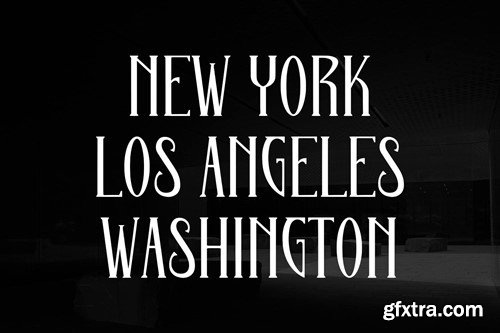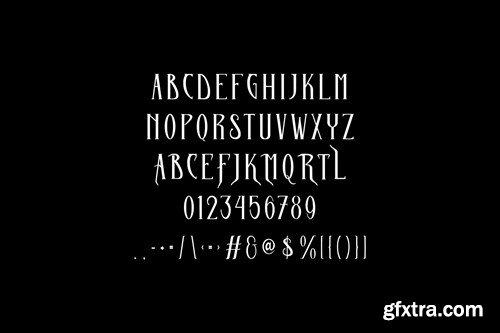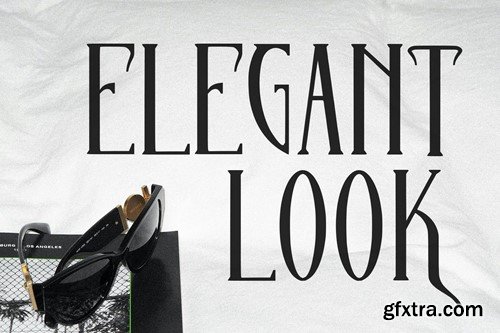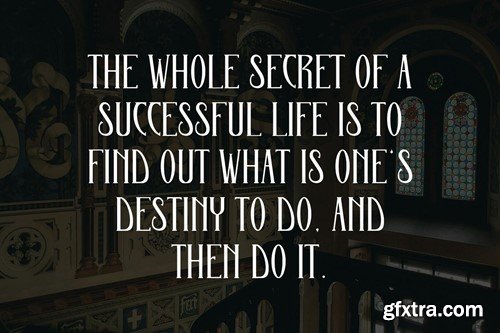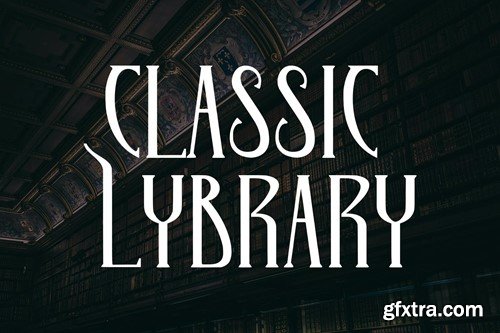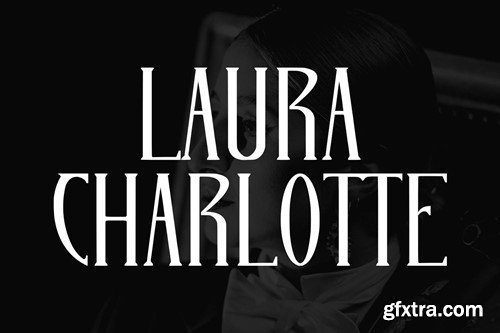
Myaric Serif Display Font
Myaric is a decorative serif display font. Bold stroke, fun character with a bit of ligatures and stylistic. To give you an extra creative work. Myaric font support multilingual more than 100+ language. This font is good for logo design, Social media, Movie Titles, Books Titles, a short text even a long text letter and good for your secondary text font with script or serif. Make a stunning work with Myaric font. What you get: Cheers, Maulana Creative